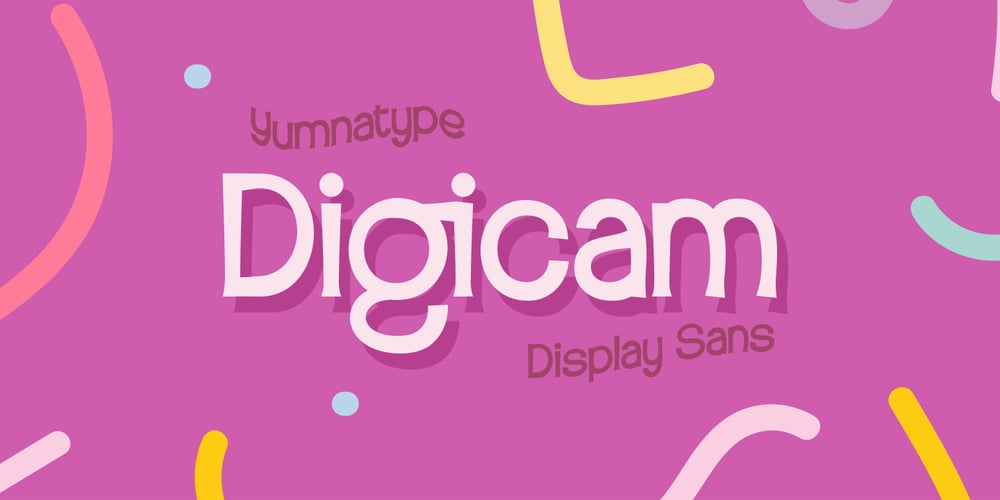
Digicam Font Family was designed by Donis Miftahudin and published by Yumna Type. Digicam contains 1 styles and family package options. Digicam is a charming serif display font that exudes a playful and modern vibe. With its soft curves and gentle demeanor, this font adds a touch of warmth and friendliness to any design project. Each letter in Digicam is crafted with rounded shapes, creating a soft and inviting appearance. The weight of the font is moderate, striking a balance between readability and personality, while the contrast of the letters is subtle, adding to the font’s overall charm. What sets Digicam apart is its playful style, which infuses a sense of fun and creativity into the design. In addition, enjoy the features here.Features: Ligatures Multilingual Supports PUA Encoded Numerals and Punctuations Digicam fits in headlines, logos, posters, flyers, branding materials, print media, editorial layouts, and many more designs. Find out more ways to use this font by taking a look at the font preview.Thanks for purchasing our fonts. Hopefully, you have a great time using our font. Feel free to contact us anytime for further information or when you have trouble with the font. Thanks a lot and happy designing.